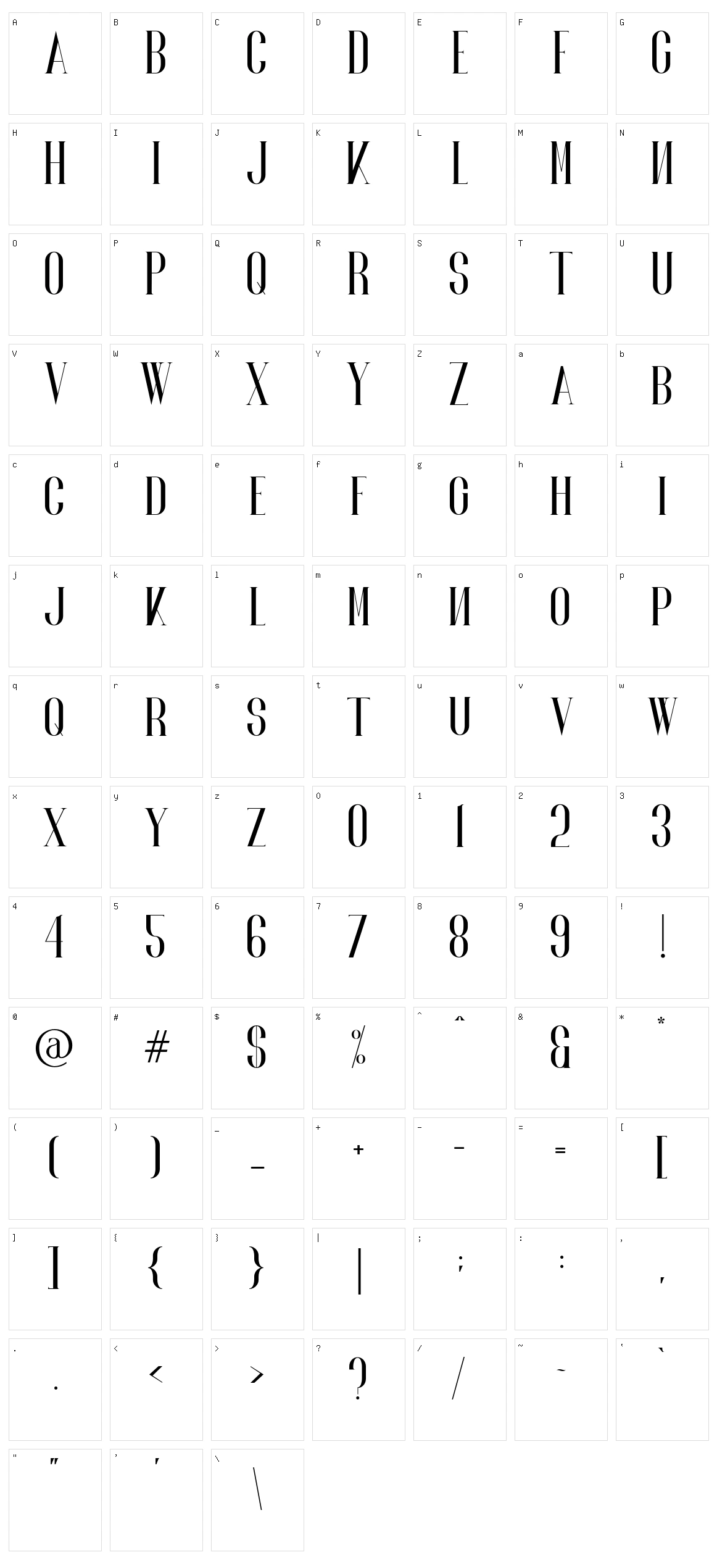
The free font Norland is carefully designed by Gilar Studio, showcasing a thoughtful balance of creativity and usability and falls under the Serif font style. When you download the ZIP file, it contains only 23.49 KB of font files, making it lightweight and quick to download. Please review the license details below to understand permitted usage and distribution rights. If license information is not available, we recommend using this font for personal projects only or contacting the author directly for commercial usage permissions.